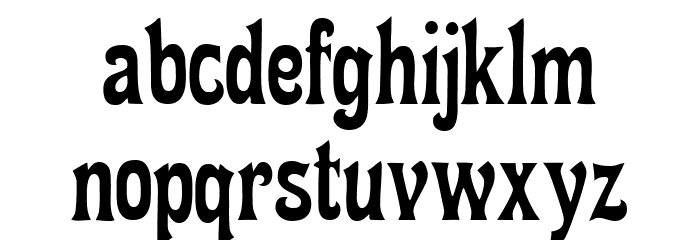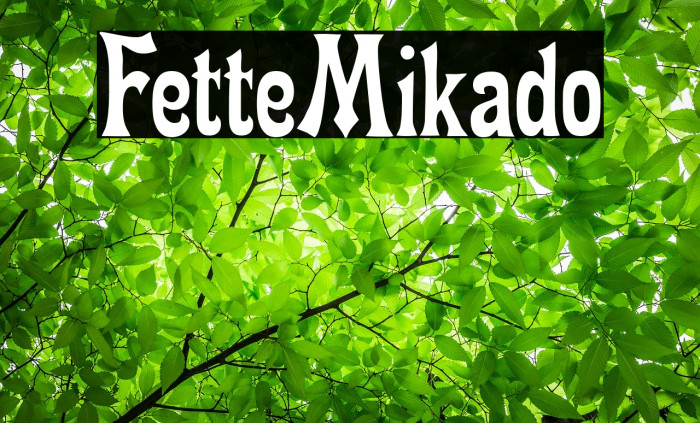
FetteMikado Font
This font features a bold and dramatic style with a distinctive flair. The uppercase letters are characterized by strong, angular serifs and a slightly condensed form, giving them a commanding presence. The lowercase letters maintain a consistent weight, with rounded edges that contrast the sharpness of the uppercase. Numbers are bold and clear, ensuring readability. Special characters are designed with the same boldness and flair, making them stand out. This font's unique style is suitable for making a strong visual impact.
A bold, dramatic serif font with angular serifs and a distinctive flair.
- Proposed Projects: Ideal for poster headlines, branding projects, and any design requiring a strong visual impact.